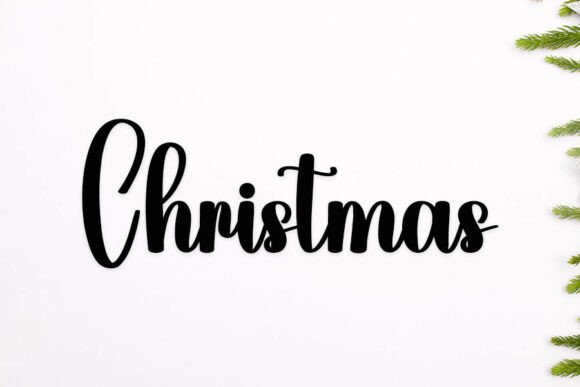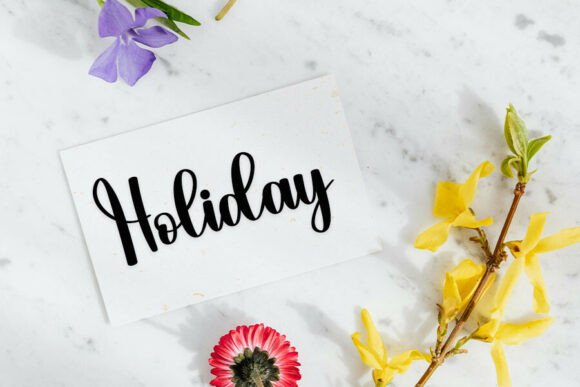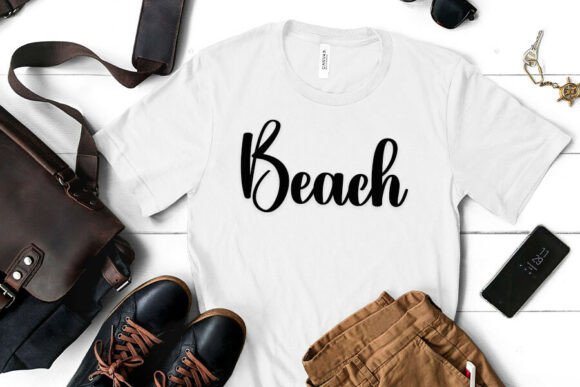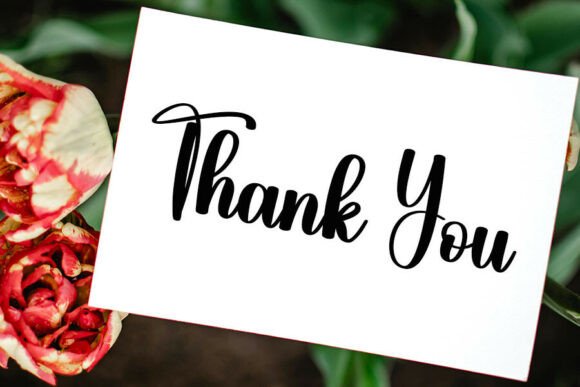
The Magical World of Hey Mickey Font: A Designer’s Delight
I still remember the time I was working on a wedding invitation project, and my client asked for a font that was elegant, yet casual; fancy, yet approachable. I scoured the internet, tried countless fonts, but nothing seemed to fit the bill. That was until I stumbled upon the lovely Hey Mickey font. It was like a breath of fresh air – smooth, charming, and effortlessly elegant. In this article, I’ll share my love for this beautiful modern calligraphy script and provide you with a comprehensive guide on how to make the most of it.
- ✅ Smooth, semi-connected letters with a friendly slant, making it perfect for both professional and casual designs
- ✅ Clean lines and consistent flow, delivering a sense of custom hand-lettering without sacrificing legibility
- ✅ Versatile and approachable, suitable for a wide range of creative projects, from personalized greeting cards to elegant logos
- ✅ Delightful personality that adds a personal and beautiful touch to any design
- ⚠️ May not be the best choice for very long blocks of text, as it’s designed to be elegant and eye-catching, rather than highly legible in large quantities
- ⚠️ Some users may find the font’s casual feel too relaxed for very formal or corporate designs
Similar Fonts or Alternatives: Expand Your Design Horizons
- Kaitlynn: A whimsical and elegant script font with a similar feel to Hey Mickey. Use Kaitlynn for more feminine and delicate designs.
- Pacifico: A beautiful, modern script font with a relaxed, casual vibe. Pacifico is perfect for designs that require a more laid-back feel.
- Great Vibes: A stunning, elegant script font with a sophisticated feel. Use Great Vibes for more formal or corporate designs that still require a touch of elegance.
- Lobster: A classic, elegant script font with a luxurious feel. Lobster is perfect for designs that require a more refined and sophisticated look.
The Story Behind Hey Mickey Font: A Designer Inspiration
According to its creators, Hey Mickey font was designed to capture the essence of modern calligraphy, with a focus on elegance, approachability, and versatility. The font’s smooth, semi-connected letters and friendly slant were inspired by the world of hand-lettering, where every stroke and curve is a reflection of the human touch.
Q: What makes Hey Mickey font so special?
A: Hey Mickey font is special because of its unique blend of elegance, approachability, and versatility. Its smooth, semi-connected letters and friendly slant make it perfect for a wide range of creative projects.
Q: Is Hey Mickey font suitable for body text?
A: While Hey Mickey font is elegant and eye-catching, it’s not designed for long blocks of body text. It’s best used for headings, titles, or short paragraphs where you want to make a statement.